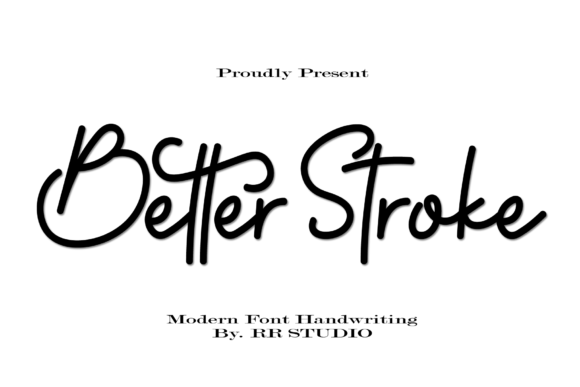
Journey into the world of calligraphy with Better Stroke Font, a creation of RR Studio, where elegance and simplicity intertwine. This script font, inspired by the whispers of a ghost, brings a touch of mystery and charm to your digital designs.
Step into a world where words dance with grace and fluidity. Better Stroke Font, with its delicate strokes and flowing curves, captures the essence of handwritten elegance. Experience the joy of creating designs that speak volumes, leaving an unforgettable impression on your audience.
Unleash your creativity and let Better Stroke Font guide you through a symphony of visual aesthetics. Each letter, meticulously crafted, carries a weight of emotion and depth that transcends the boundaries of the ordinary. Dive into a world where your words become art, where every project is an opportunity to showcase your unique style and charm.
With Better Stroke Font, the possibilities are endless. Whether you're designing logos, invitations, social media posts, or any other creative project, this font will elevate your work to new heights. Its versatility knows no bounds, allowing you to explore a wide range of design styles and themes.
Embrace the beauty of Better Stroke Font and watch your creative vision come to life. Experience the satisfaction of creating designs that resonate with your audience, leaving them spellbound by the sheer elegance and charm of your work.